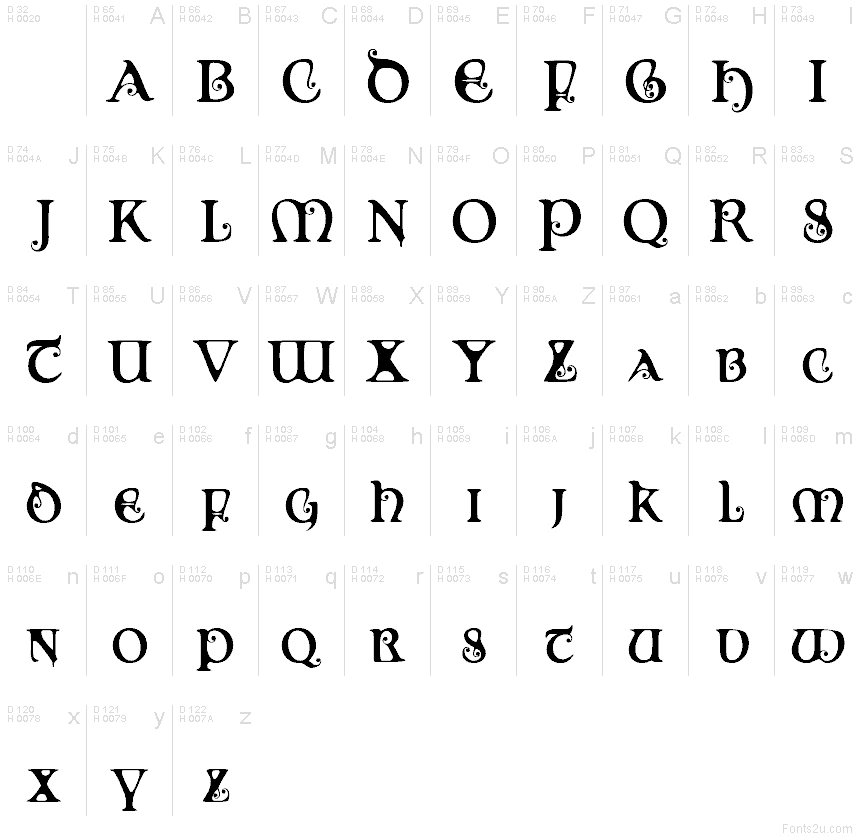
CSLizbethDrawn-Regular Demo
CS Lizbeth font by Craft Supply Co. is an elegant, vintage serif font that includes three different weights. Each letter in this font comes beautifully decorated with precise and elegant flourishes which give the otherwise simple letters a whimsical aura.
Use CS Lizbeth for posters, book covers, website headers, apparel design, greeting cards, personal diaries and journals, invitations including wedding invitations and similar stationery items.